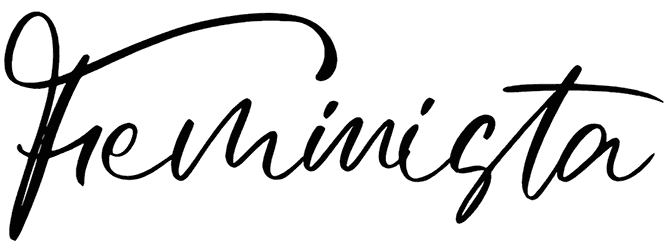
Feminista Font
Feminista is a stylish, classy cursive font. Its calligraphic design features elegant, friendly, and sociable characters. If you would like to give your typography a personal touch with a playful feel, then this genuine creative font will interest you.
It offers a full set of slick letterforms that are stunning in every aspect. Places you might want to consider adding Feminista would be branding, logos, invitations, cards, certificates, and more.